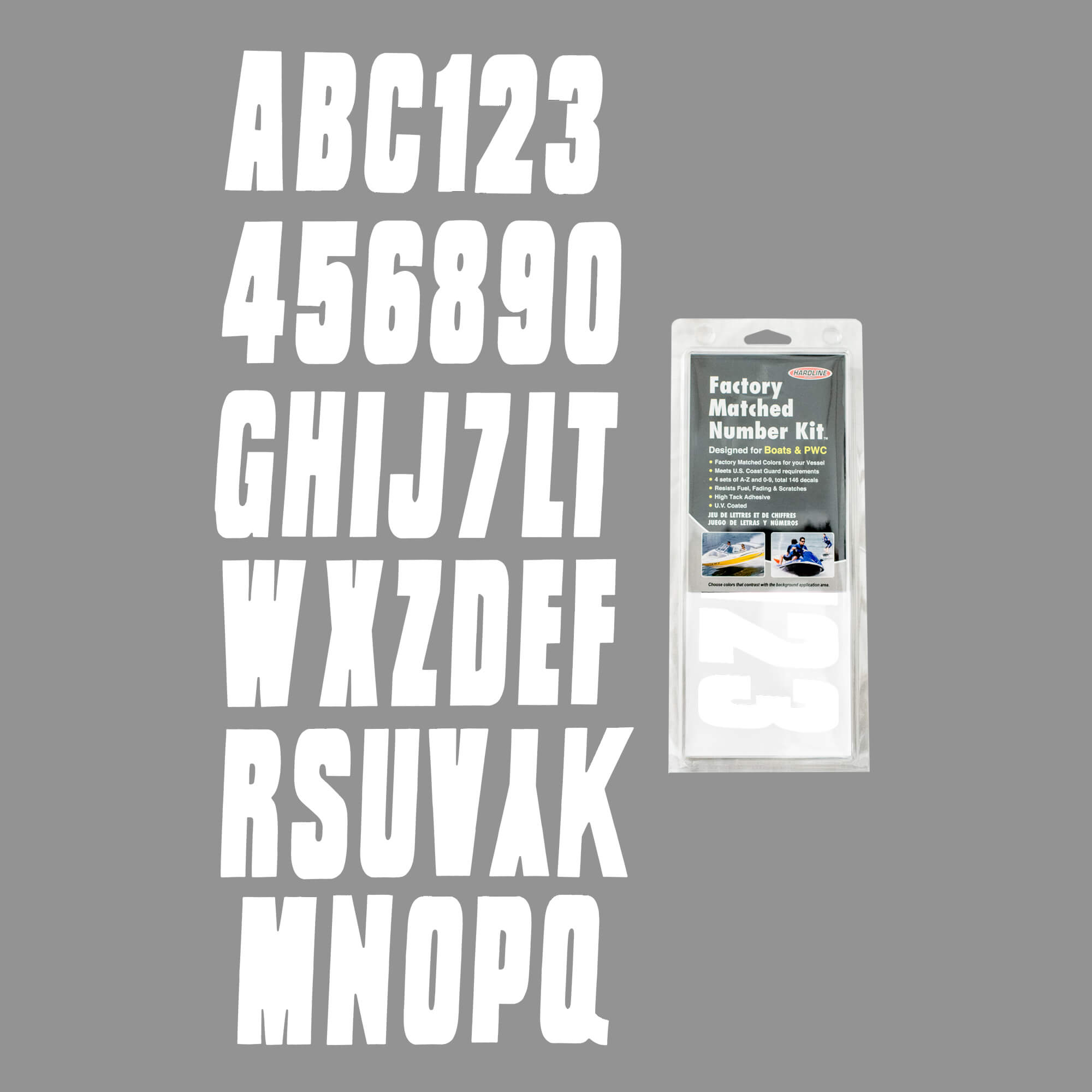
What Font Does Pwc Use
What Font Does Pwc Use. For sailing boats and pwc, a minimum 100mm high. Kawi use's a licensed patented font , you will never see any other letters that look like kawi's , they even make fast letters !!!
On both sides of the hull, or on the transom if it’s a sailing boat. Anyone know the fonts seadoo uses. I am interested in the bombardier font also the xp font.
Your Letter's Are Close But Kawi's 1St K And The I Is Taller And A Lil Bit More Bold Than The Other Letters.